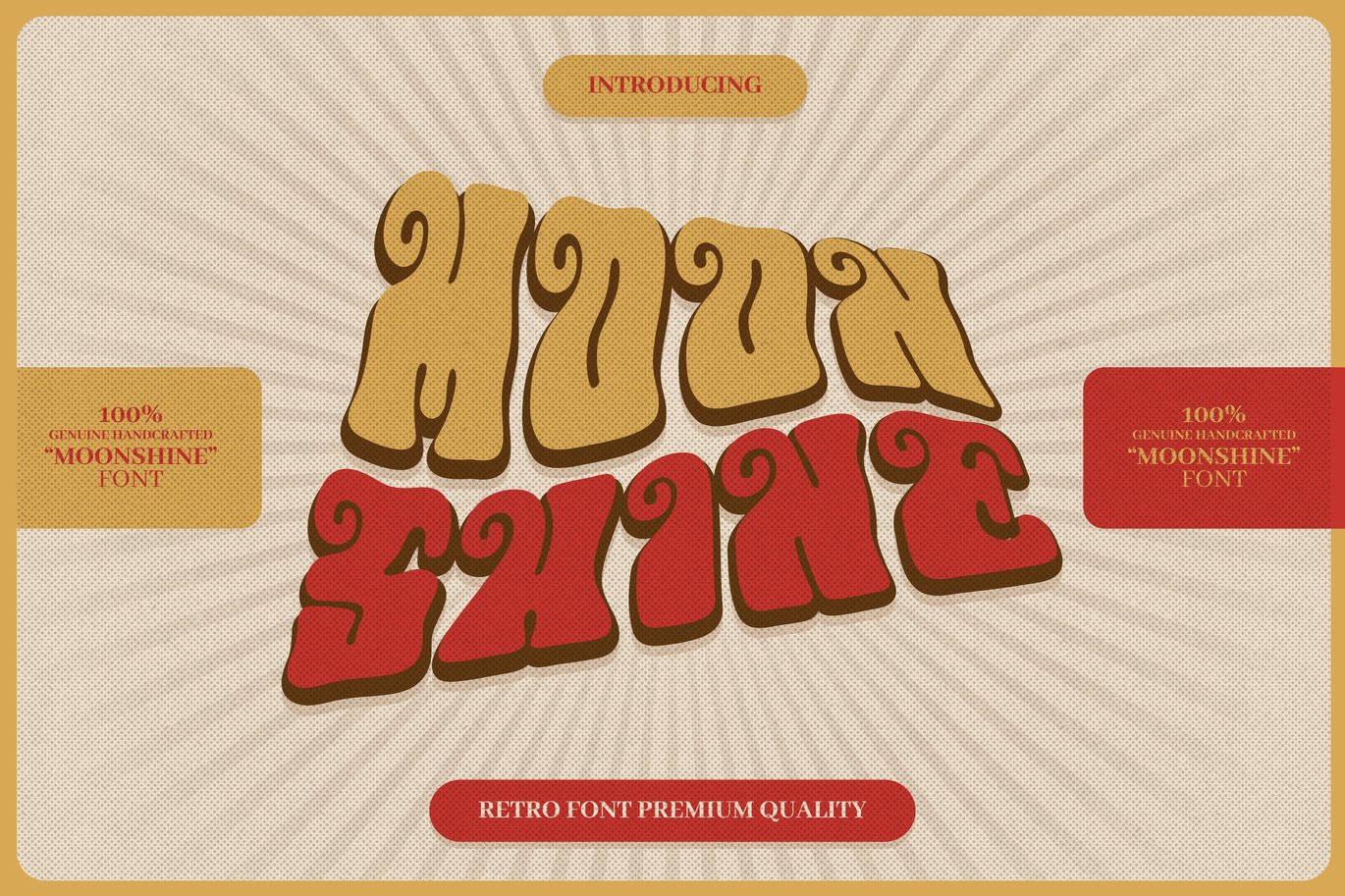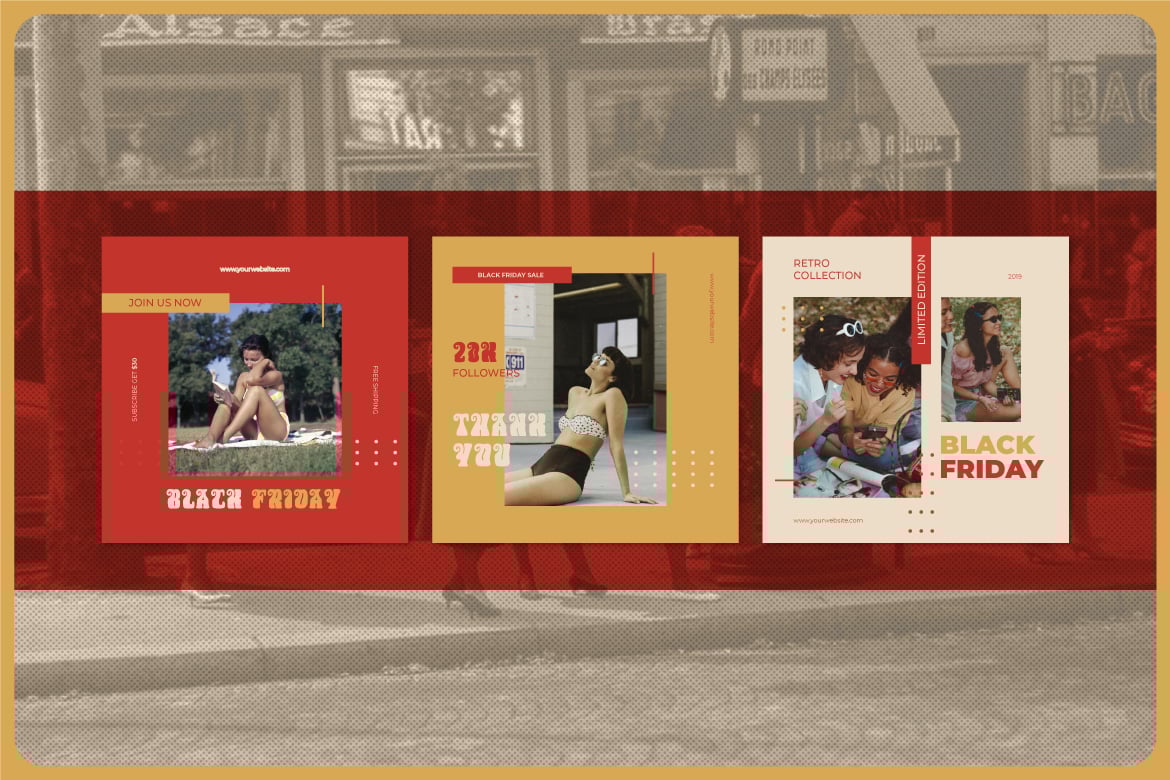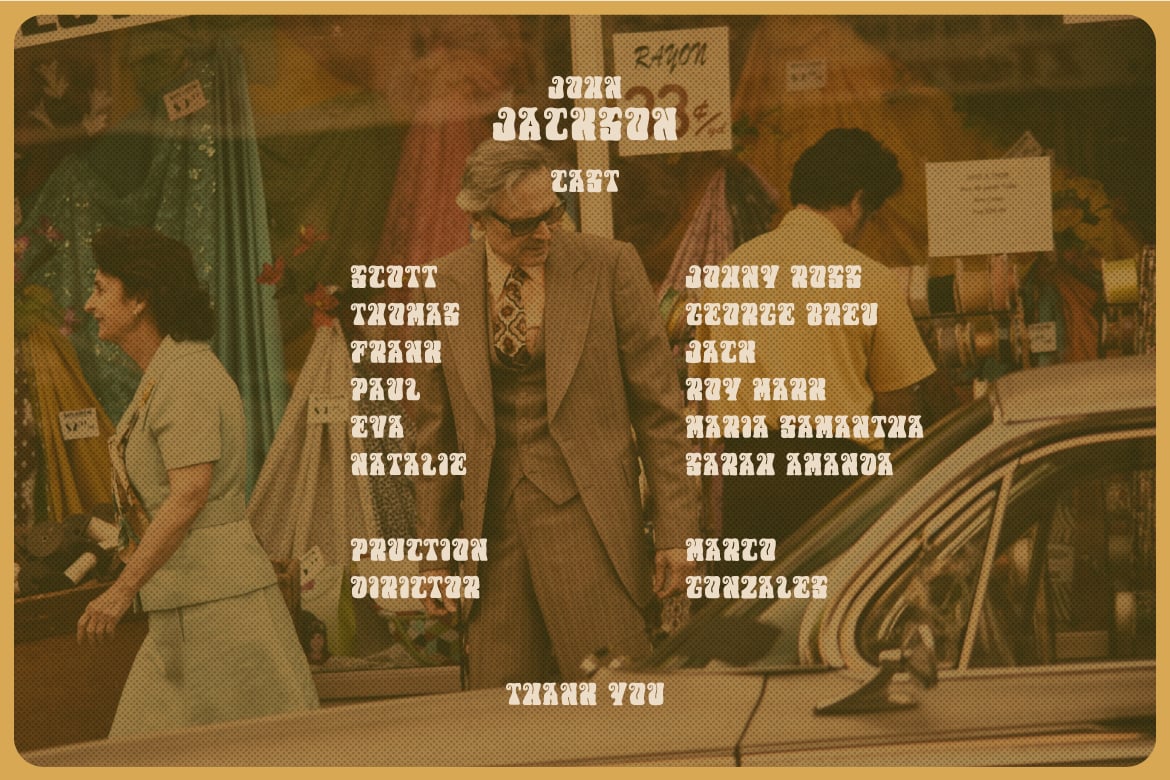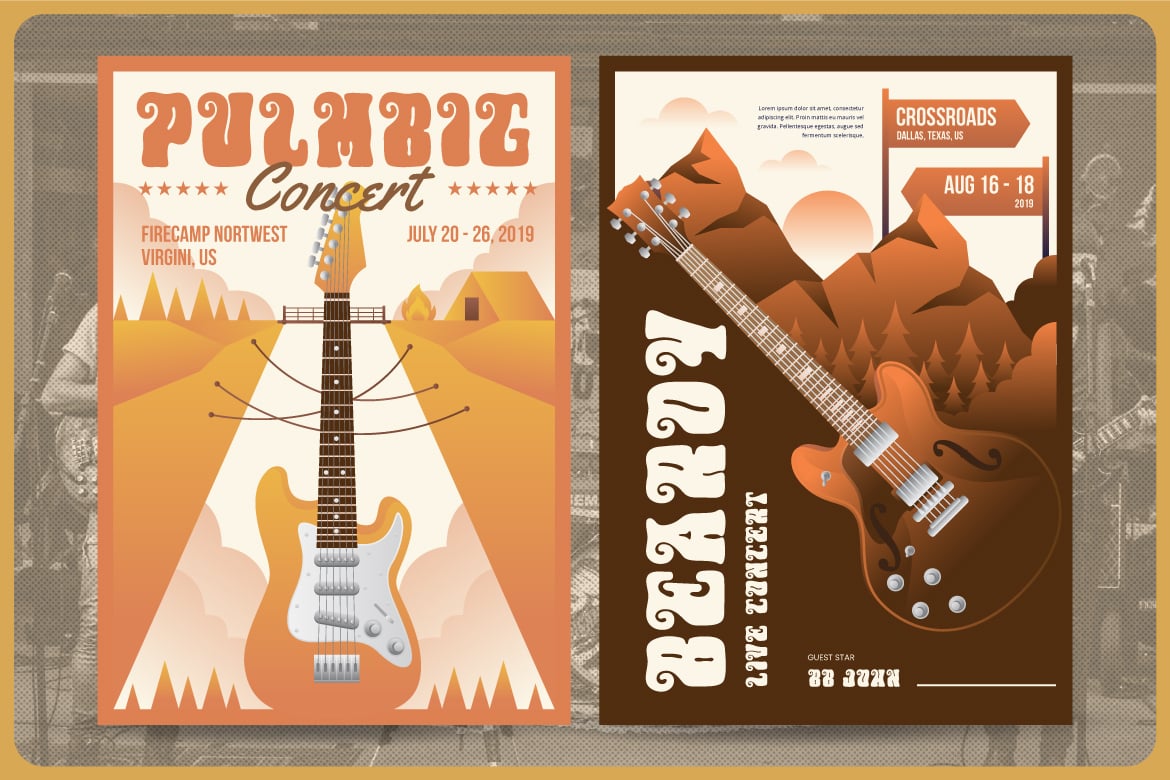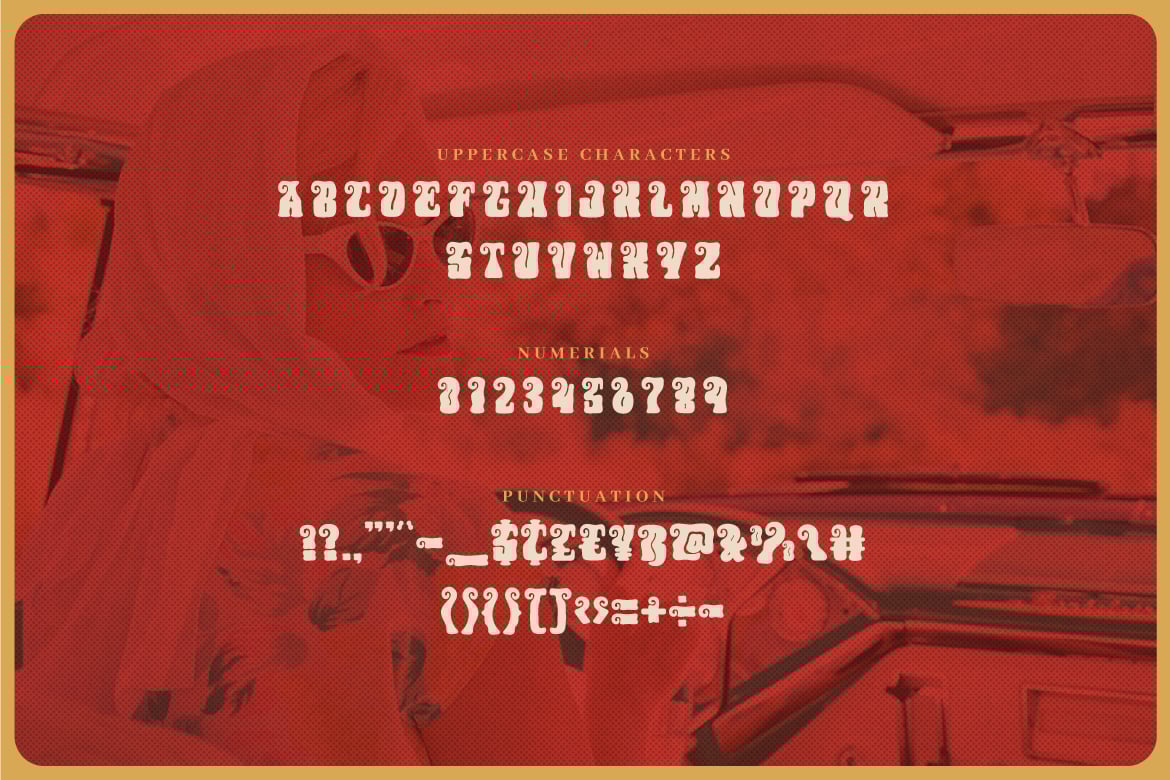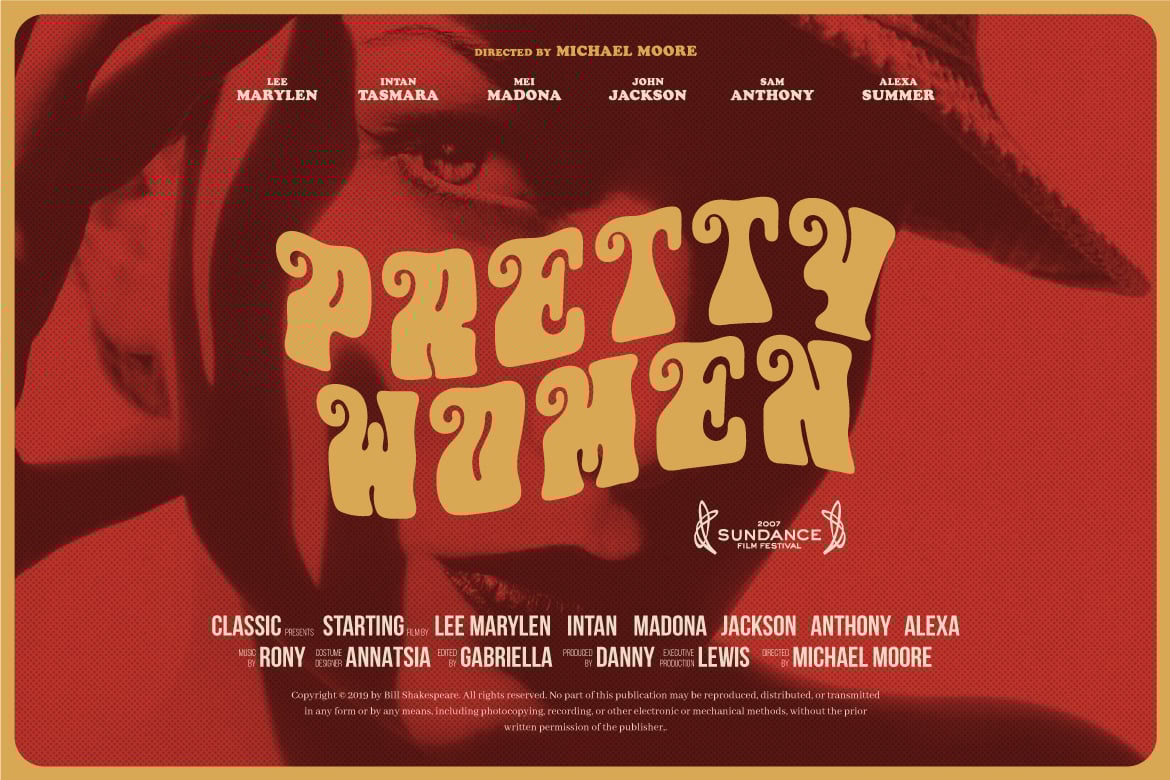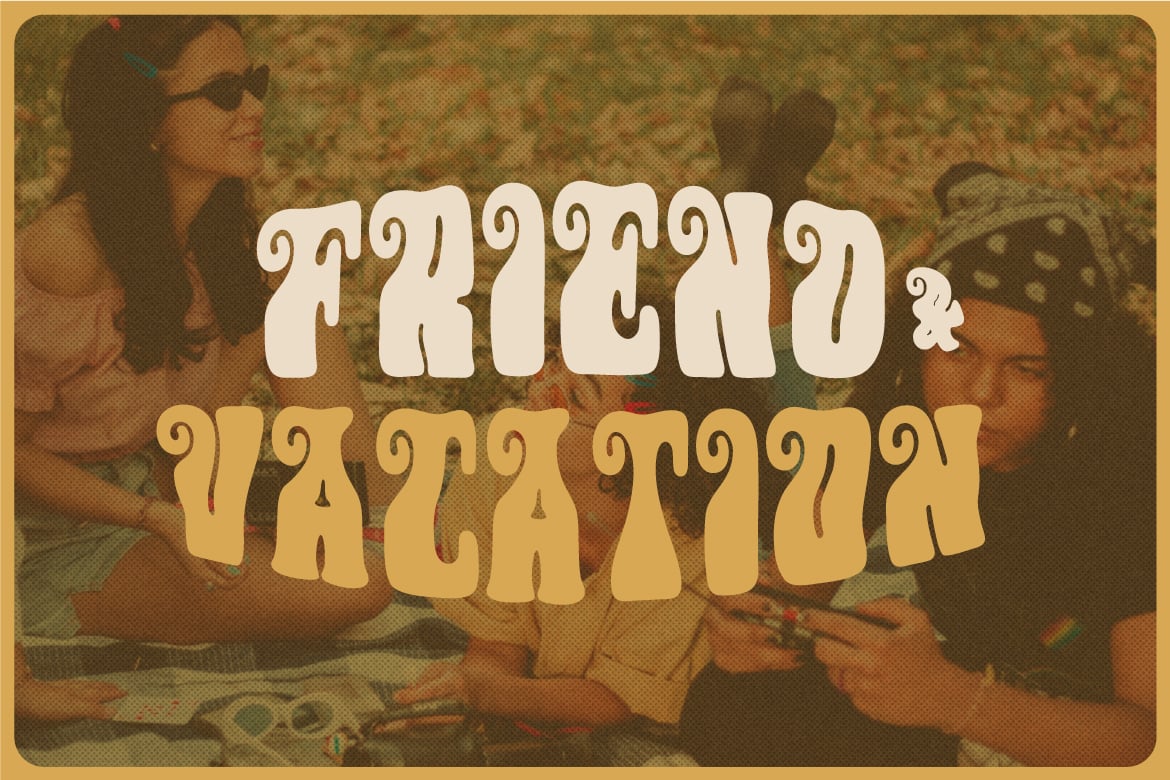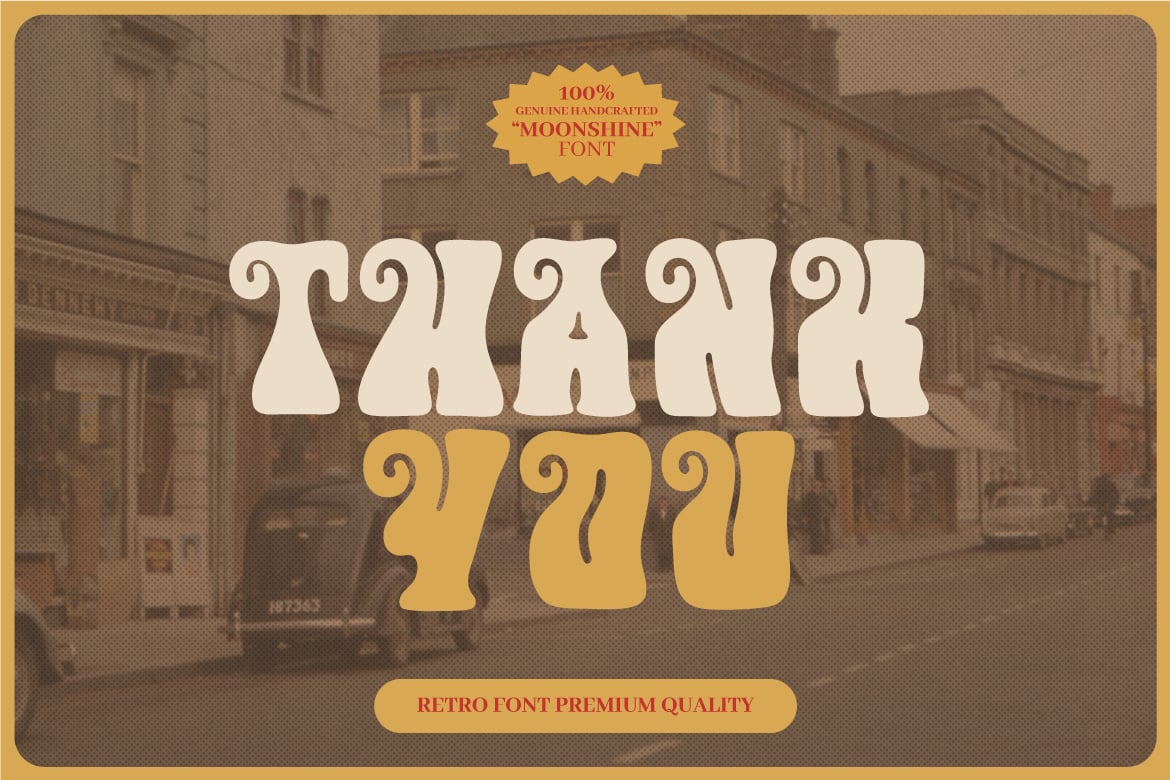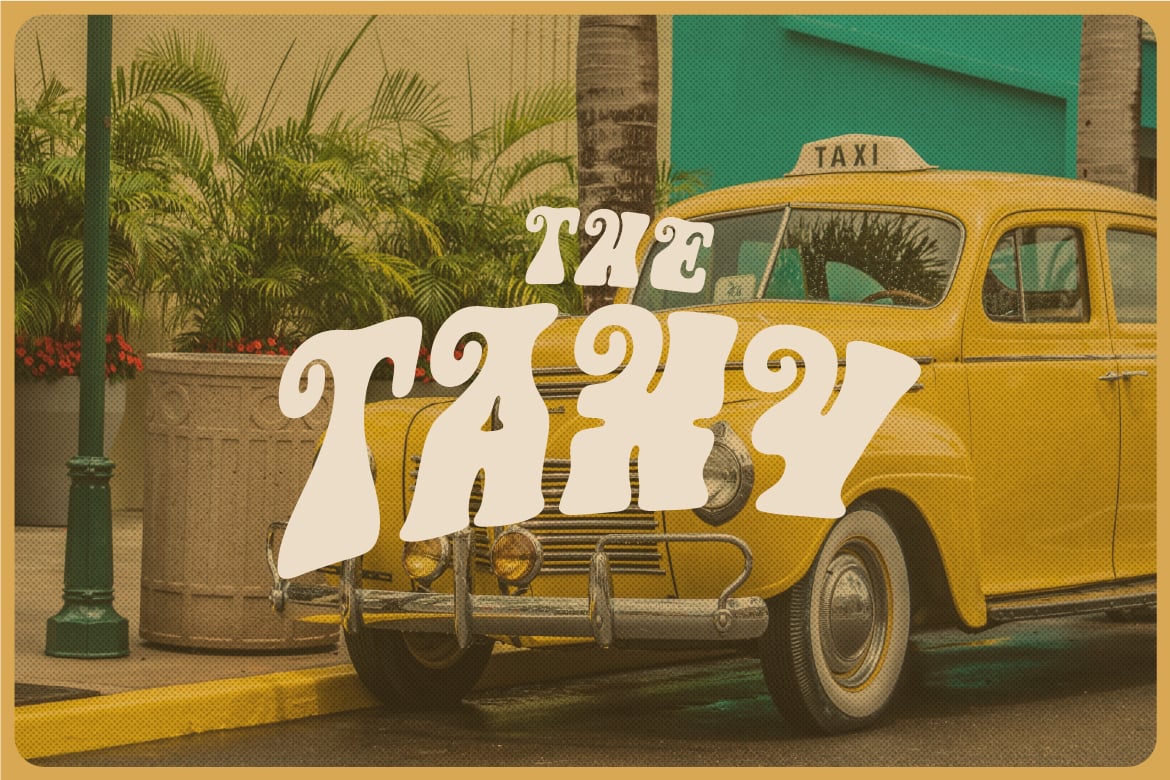
Moonshine – Retro Psychedelic Font
Introducing Moonshine font. Are you looking for a bold fun retro font that has a groovy funk Psychedelic feeling? We can help! Try to download our Moonshine vintage retro funk font. The font is suitable to use for many occasion such as invitation, banner, movie title, brand, event, and many more π